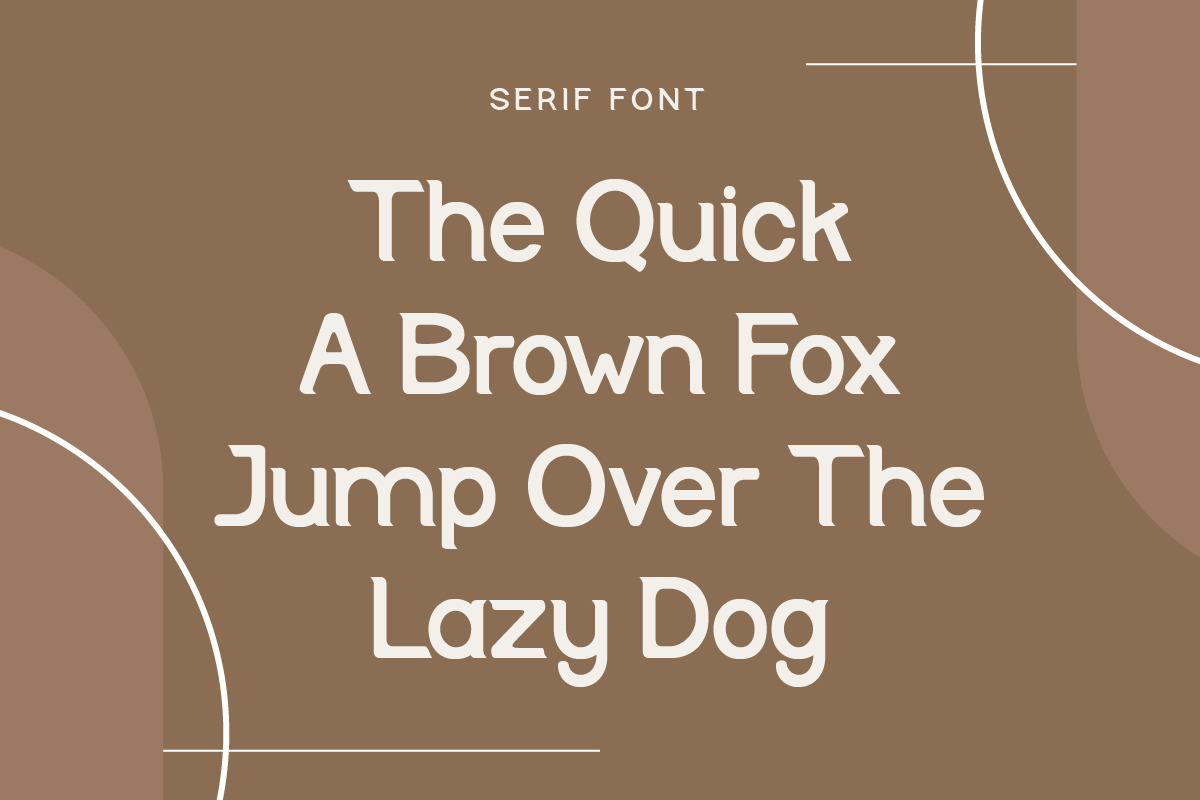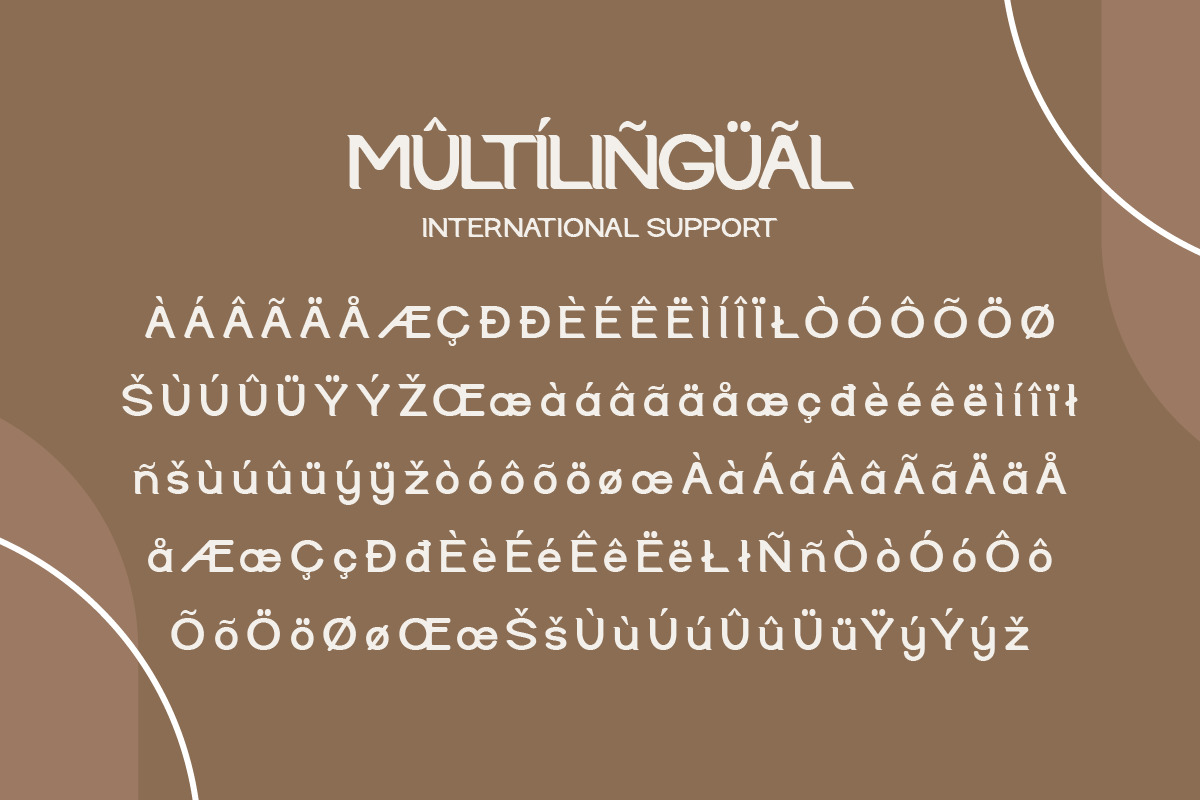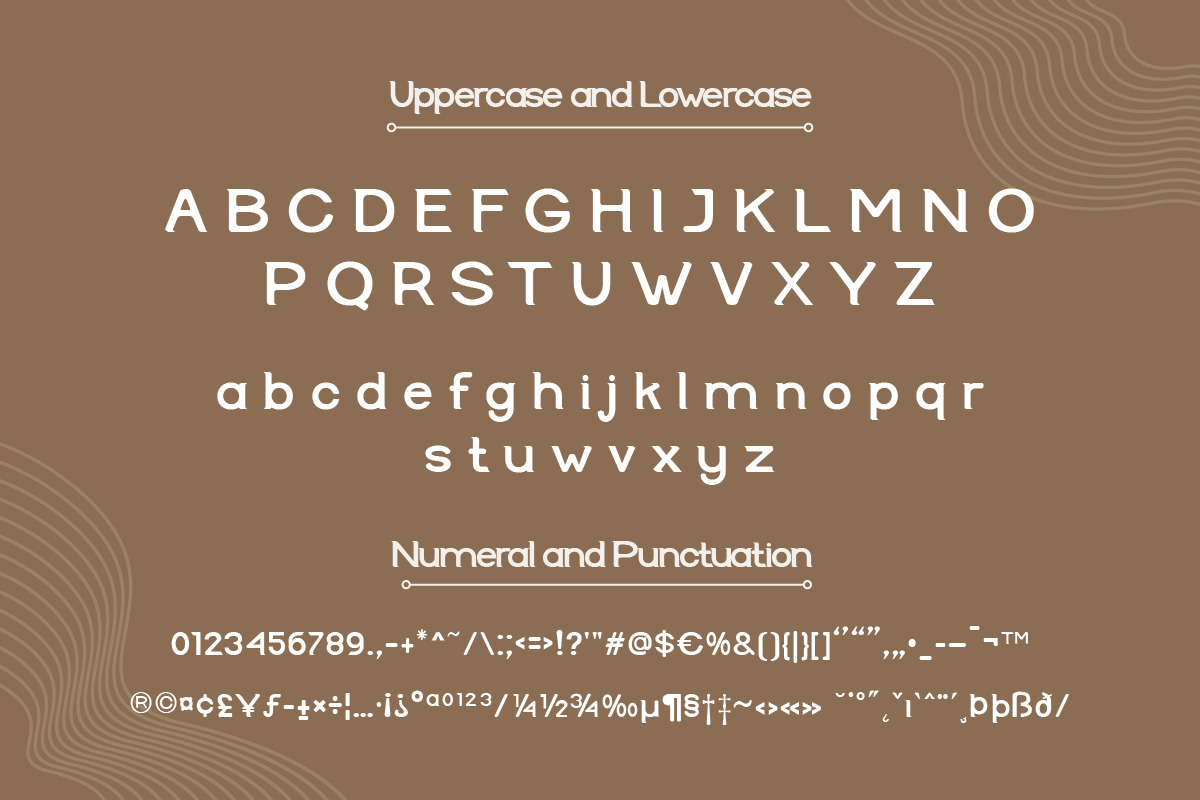
Golida - Modern & Elegant Display Serif Font
Introducing Golida, the Modern & Elegant Display Serif Font that will elevate your designs to the next level. With its sleek and sophisticated look, Golida is perfect for high-end branding, fashion, and editorial projects. The sharp lines and distinct serifs give this font a timeless feel that will never go out of style. Golida is versatile enough to be used for headlines, titles, logos, and more.